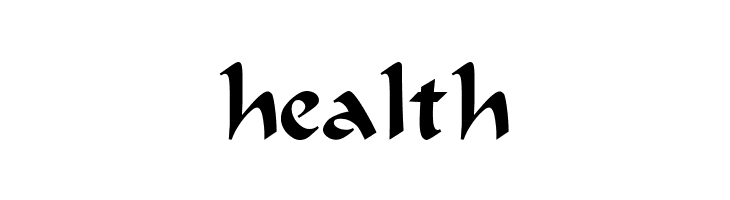
A playful, hand-drawn font with thin, irregular strokes and dot connections.
A bold, decorative font with cartoon figures, perfect for playful designs.
A bold, futuristic font with geometric and rounded characters.
A flowing, cursive font with smooth, rounded edges and a dynamic slant.
A bold, energetic script font with a hand-drawn appearance.
A bold, dynamic script font with a brush-like appearance.
A bold, retro font with playful, exaggerated letterforms and a 60s-70s vibe.
A bold, gothic-inspired font with sharp, angular edges and a tribal aesthetic.
A bold, rounded font with a playful and retro vibe.
A decorative Gothic font with intricate flourishes and modern elements.
A whimsical and artistic script font with dynamic curves and medium contrast.
A decorative font with medieval, handcrafted elements and intricate details.
A classic serif font with a traditional and elegant design.
A classic serif font with elegant and refined characters.
A bold, playful, hand-drawn font with a casual and friendly feel.
A playful and informal handwritten font with dynamic letterforms.
A bold, geometric font with Art Deco influences and high contrast.
A bold, jagged font with a hand-crafted, dynamic style.